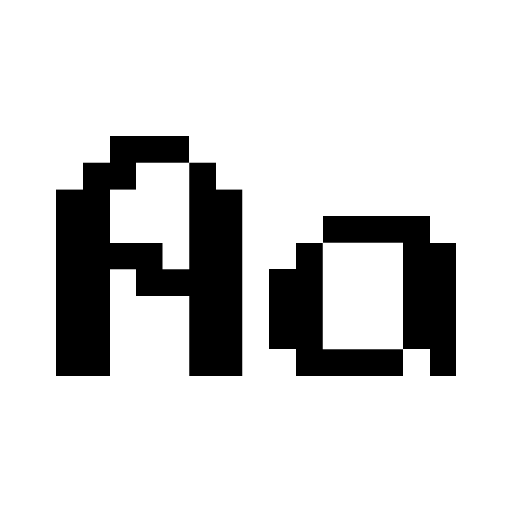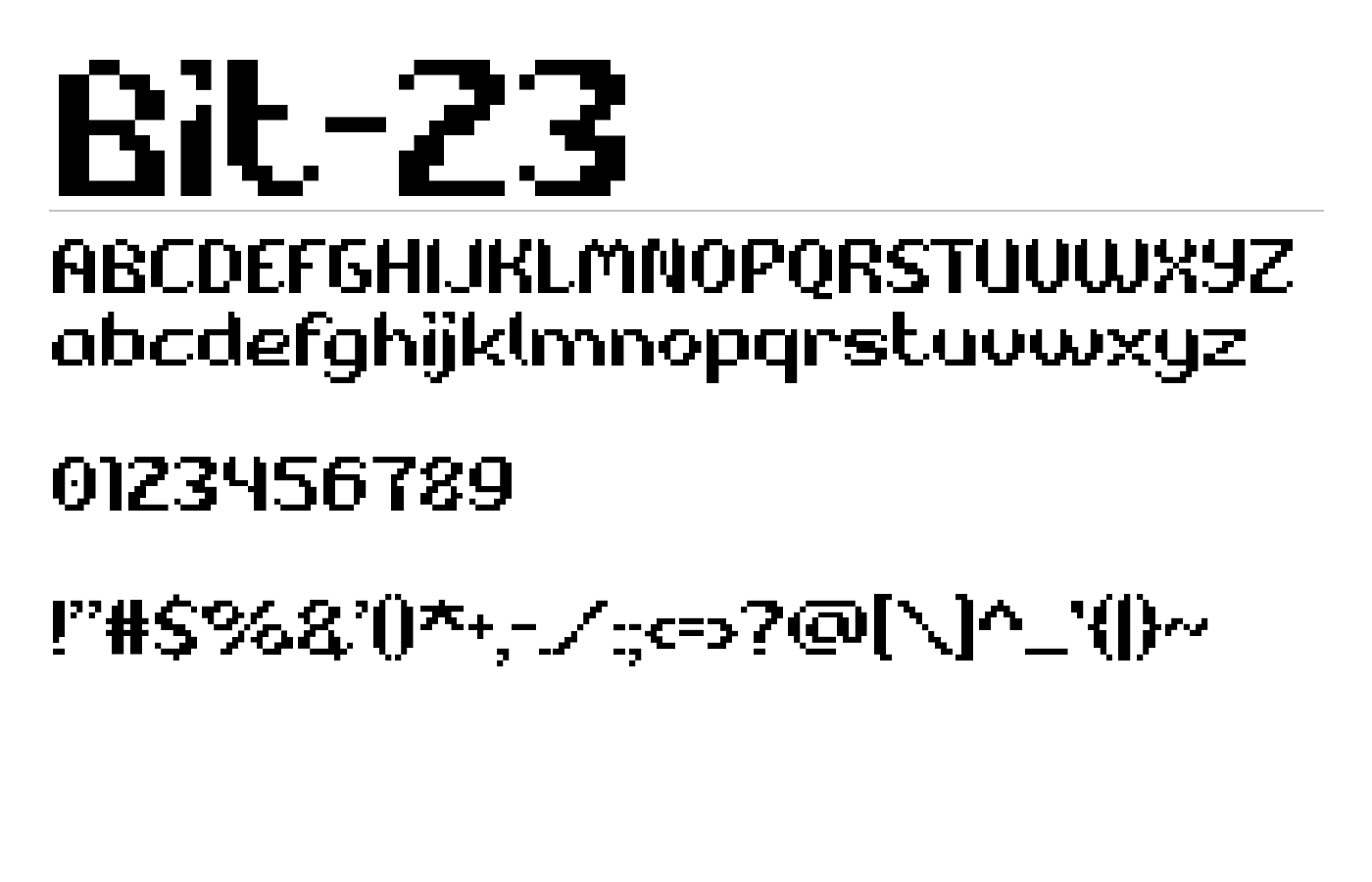
Bit-23 is a pixel-style sans serif font that captures a retro digital aesthetic with its blocky, monospaced letterforms and sharp, angular edges. Its consistent weight and narrow width evoke a tech-savvy, nostalgic feel, making it ideal for gaming, digital-themed designs, and creative projects that want to channel vintage computer graphics. This font works best in headlines, logos, and digital artwork where a bold, pixelated look is desired.
Bit-23 Font